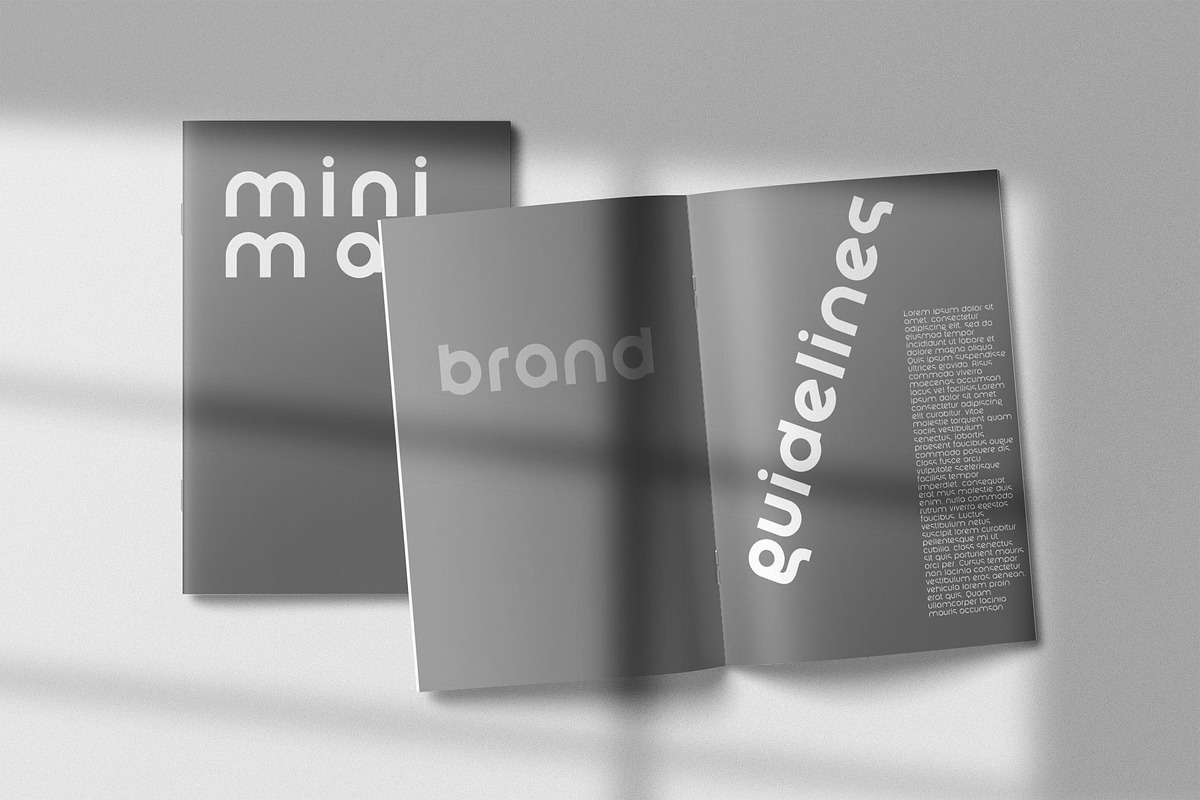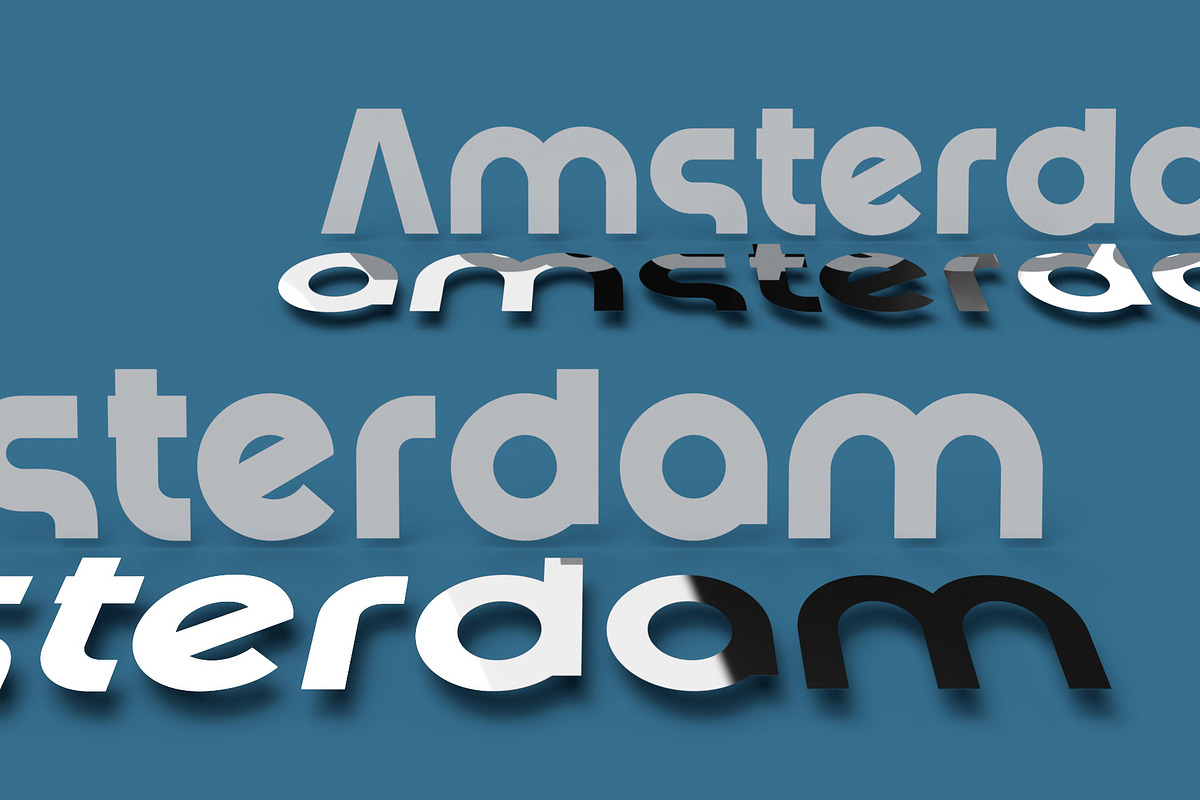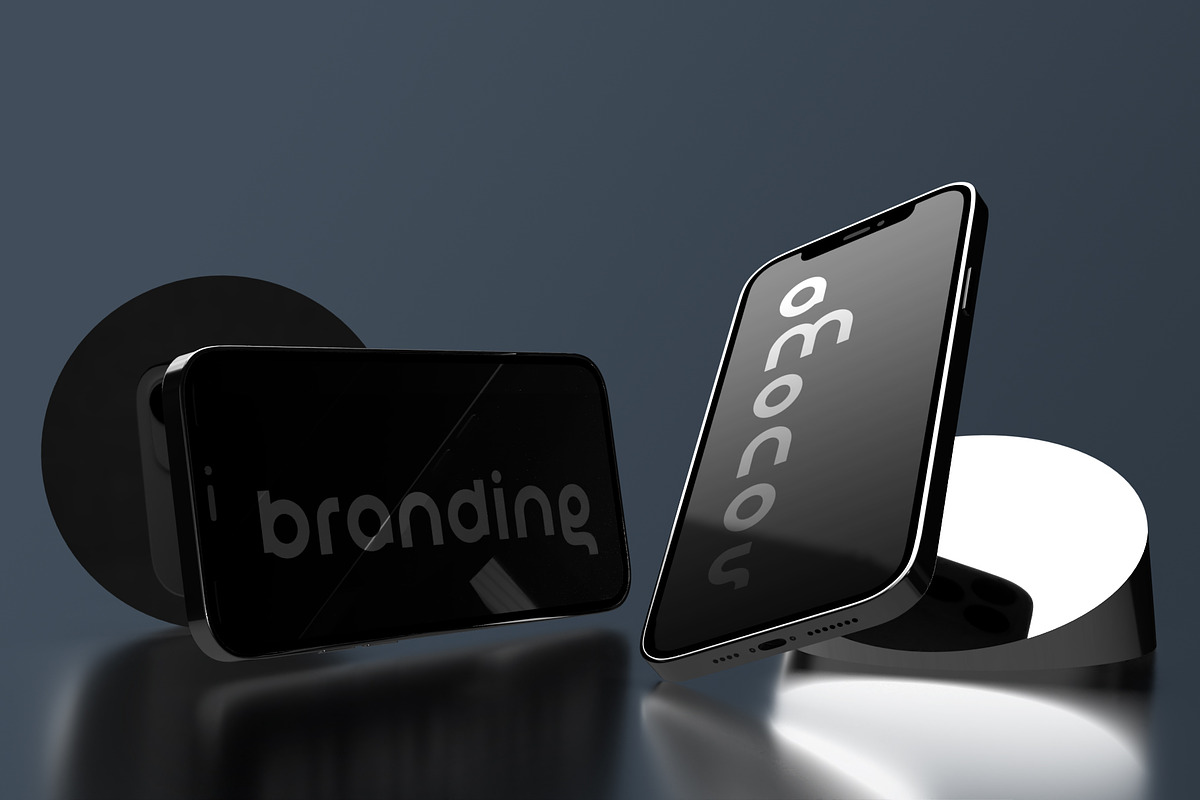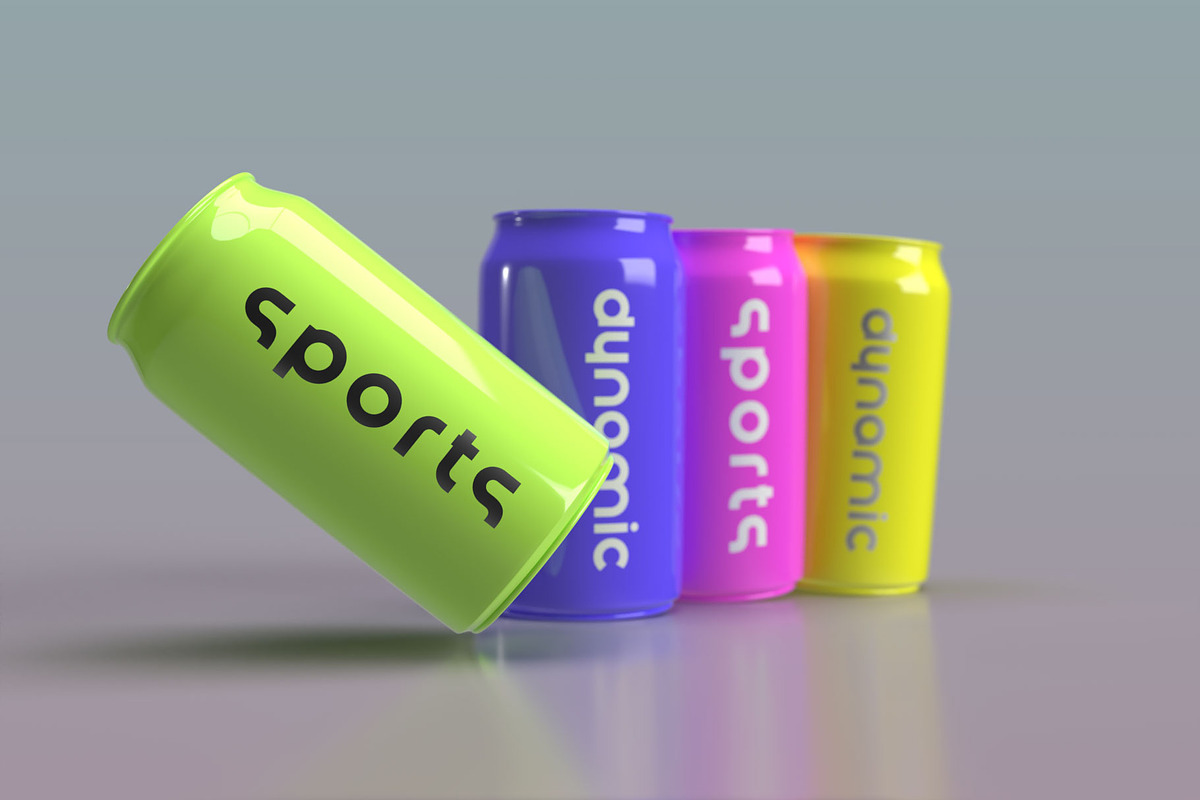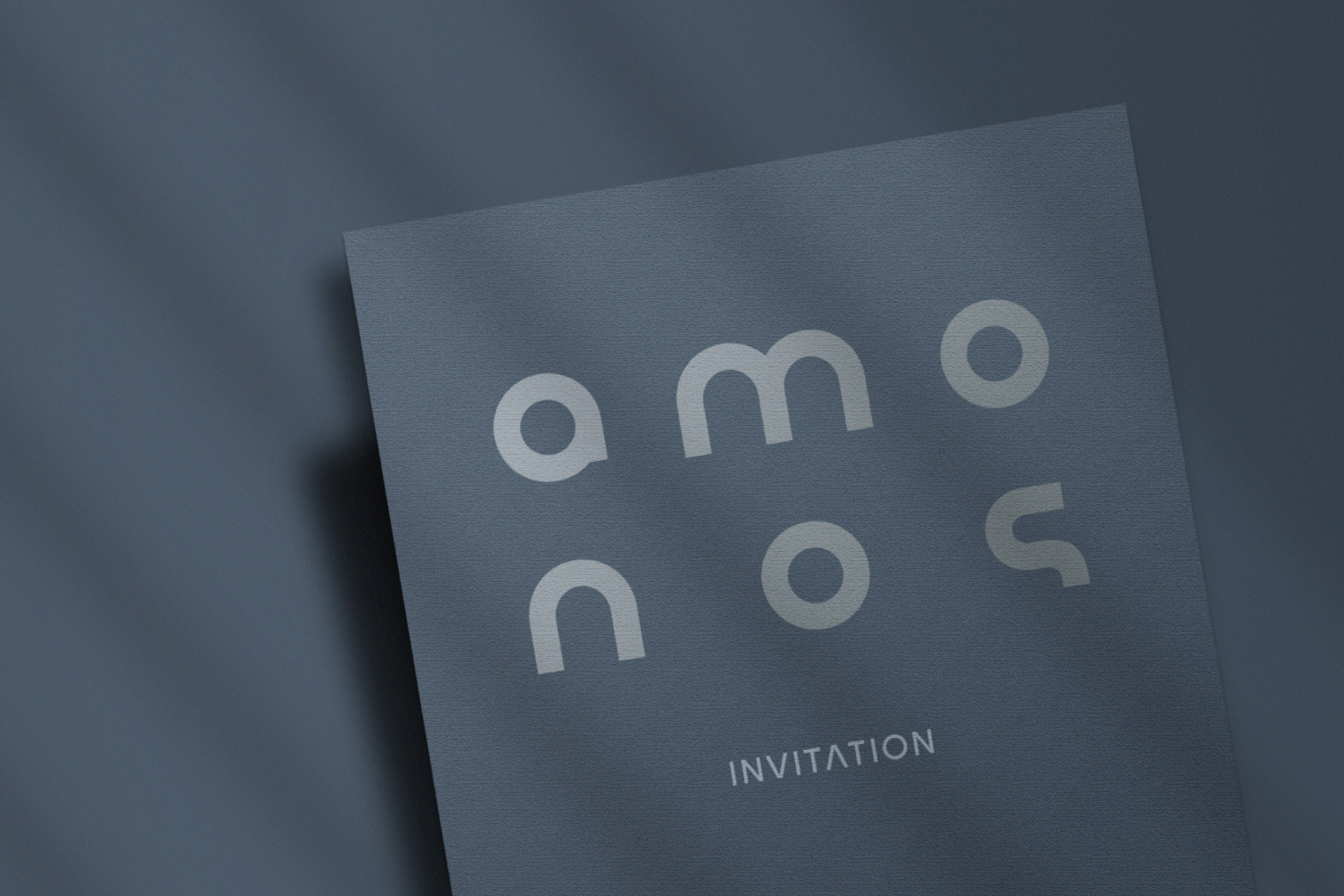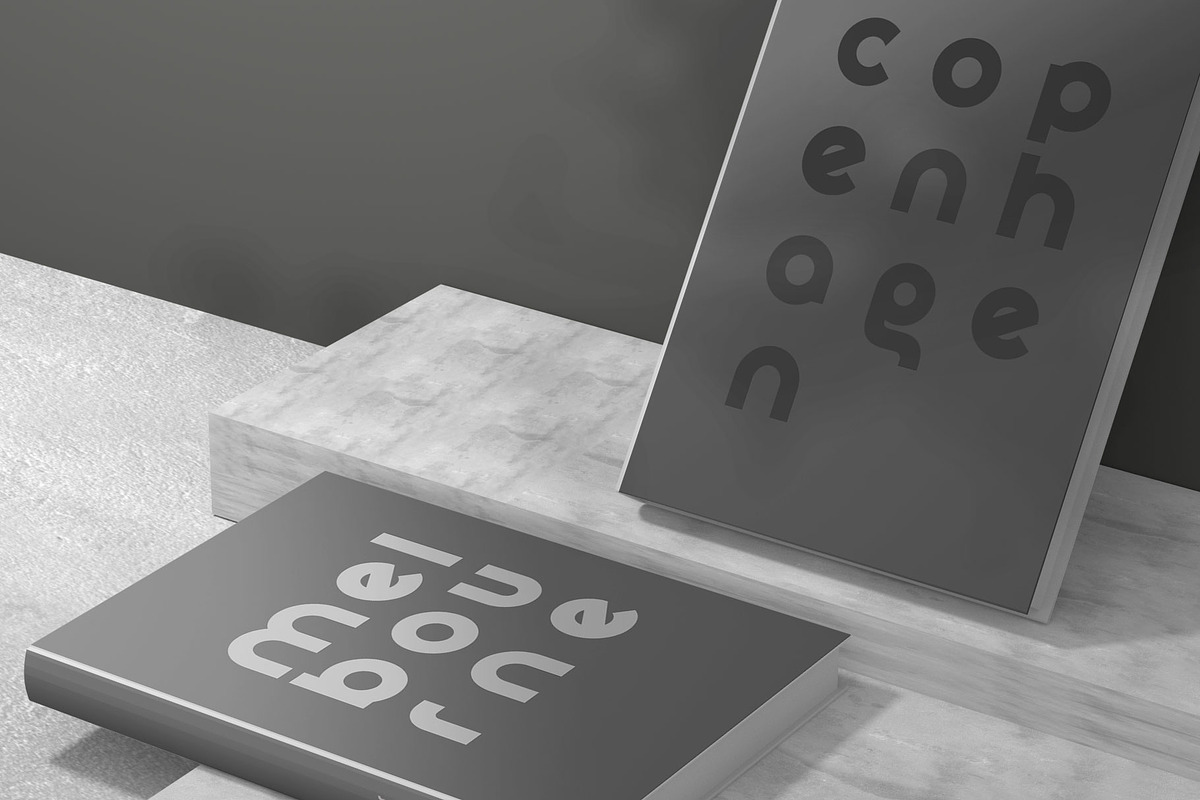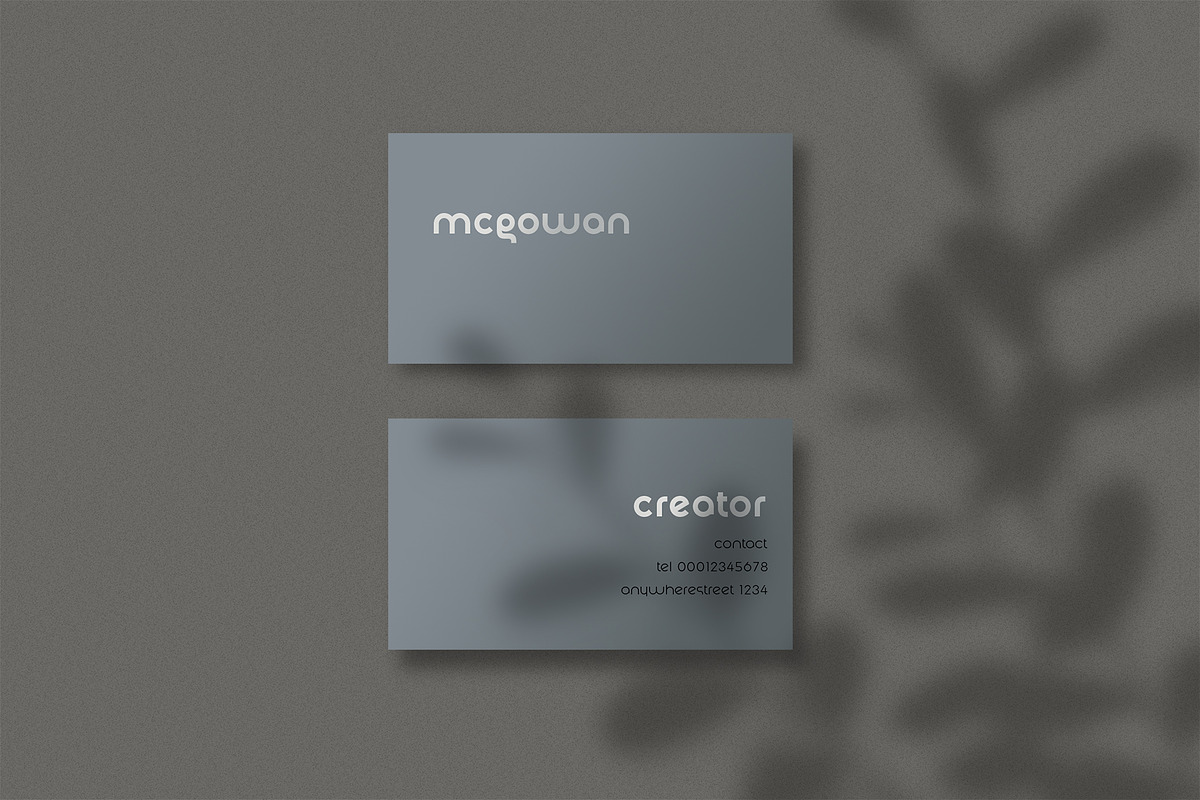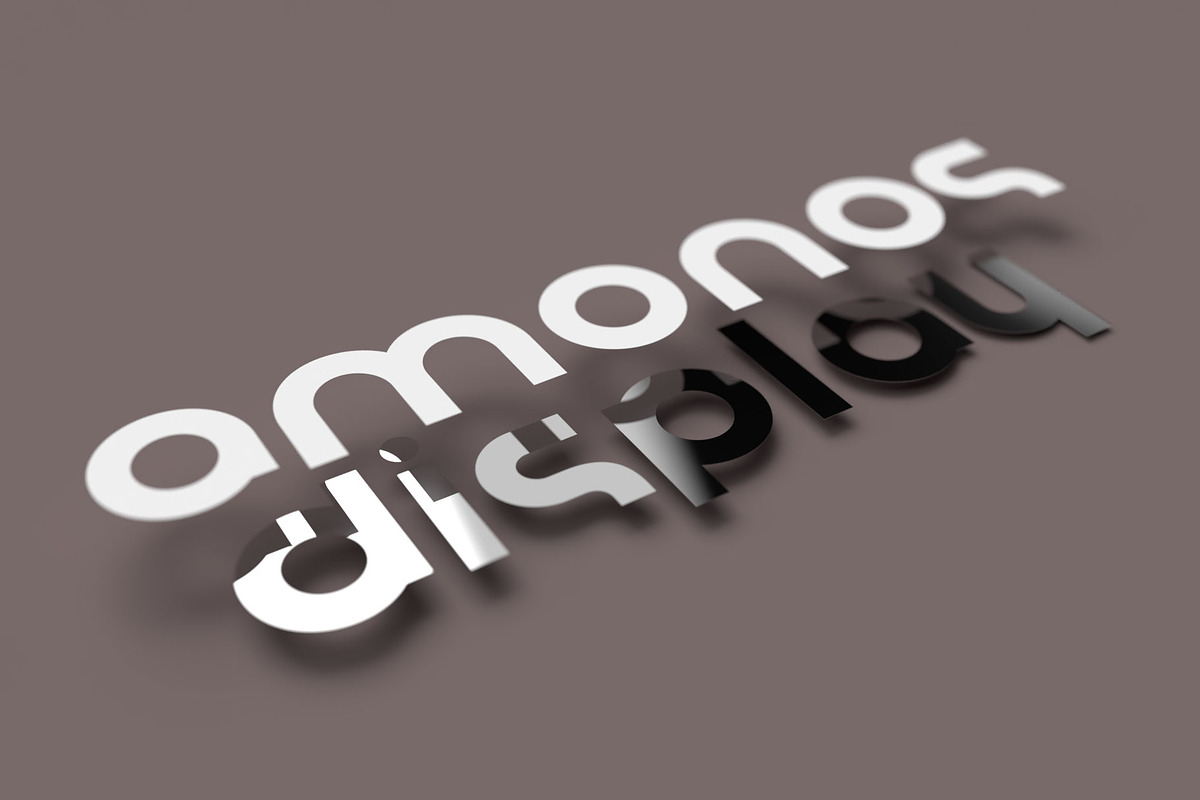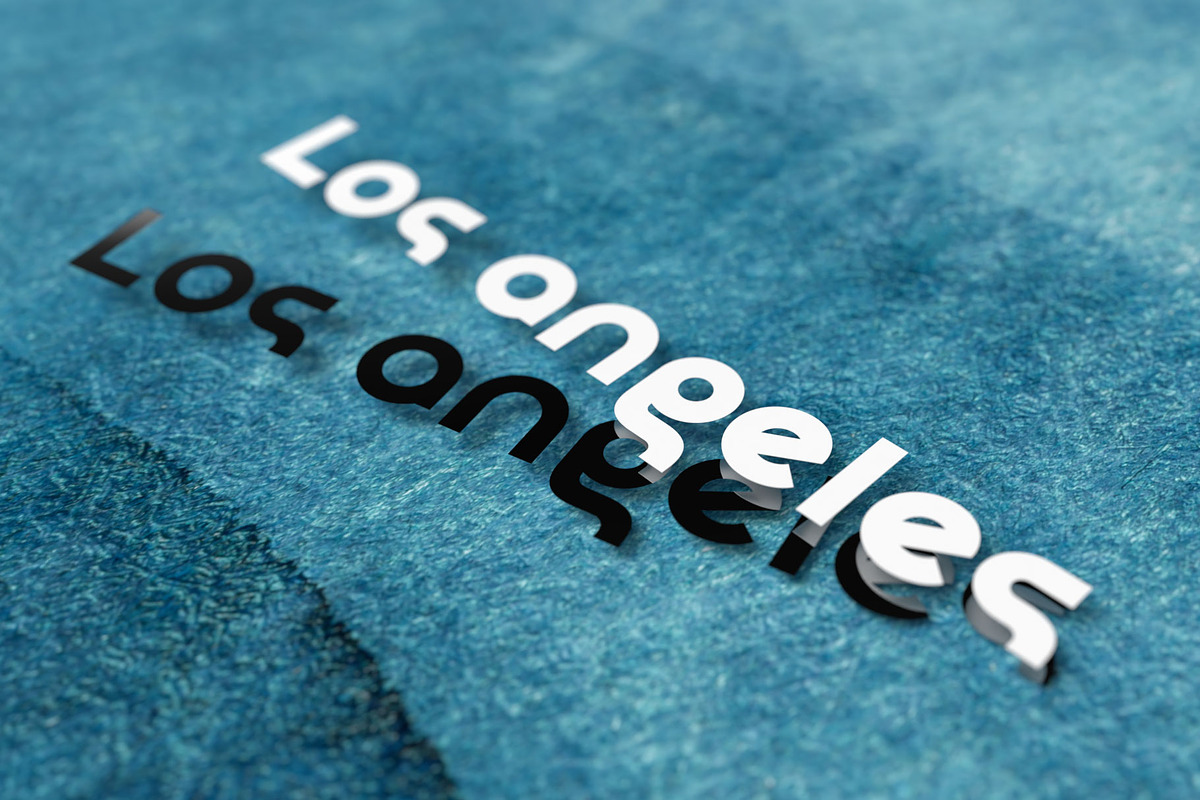
Amonos Display Font Family
Amonos Display Font Family It aims for a modern and simple lifestyle. Sleek and stylish skeletons boast a unique style from thin to black weights. Regardless of weights, 18 styles have special talents related to headings, subtitles and logos. The understated metaphor and sense of stability is the best alternatives for creative typography. Therefore, it supports stable dynamics beyond the biased simplicity of geometric fonts. And some different Glyphs of oblique typefaces add to the delightful fun. Enclosed Alphanumerics, and Symbols will be useful for editorial design.